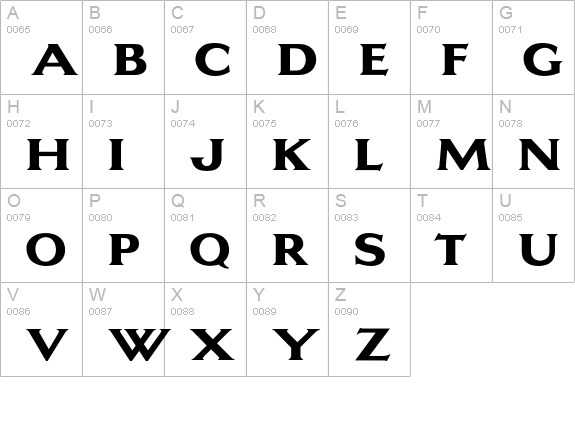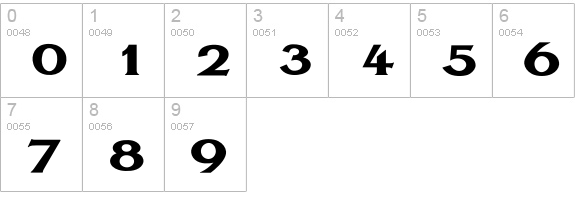
LaguneExtraBold Font Details
Introducing LaguneExtraBold, a captivating font that exudes power and confidence with its bold and striking design. This font is perfect for making a lasting impression and commanding attention in any design project. LaguneExtraBold is meticulously crafted to deliver a strong visual impact, making it ideal for headlines, posters, logos, and any other project that requires a bold and impactful typeface. Its thick and pronounced letterforms effortlessly demand attention, while maintaining a sense of elegance and sophistication. This font's versatility shines through in its ability to convey both modern and classic aesthetics. Whether you're designing a cutting-edge brand identity or a vintage-inspired piece, LaguneExtraBold will effortlessly adapt to your creative vision. One of the most remarkable aspects of LaguneExtraBold is that it is freely available to download at FontsMarket.com. This means that you can unleash your creativity without any limitations or constraints. Access this striking font and elevate your designs to new heights. With LaguneExtraBold, you can create designs that leave a lasting impression and make a bold statement. Its free availability allows you to explore endless possibilities and bring your ideas to life. Download LaguneExtraBold today from FontsMarket.com and embark on a typographic journey that will captivate and inspire.